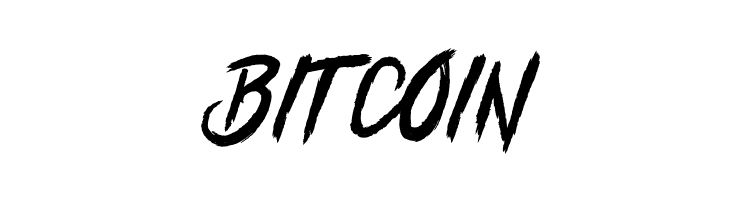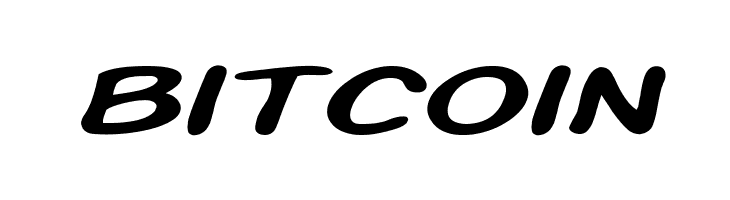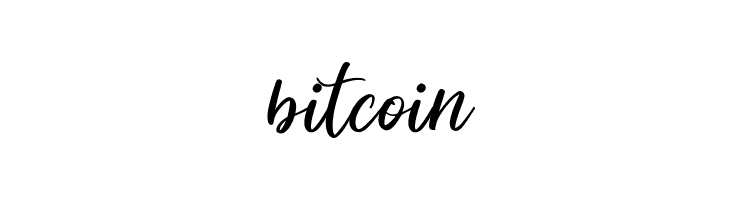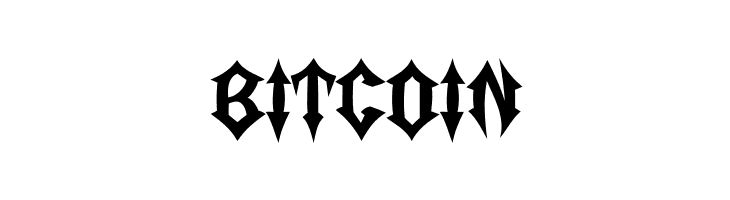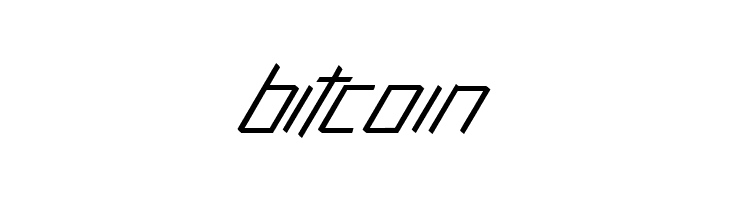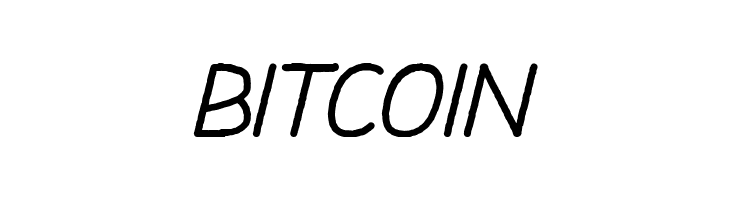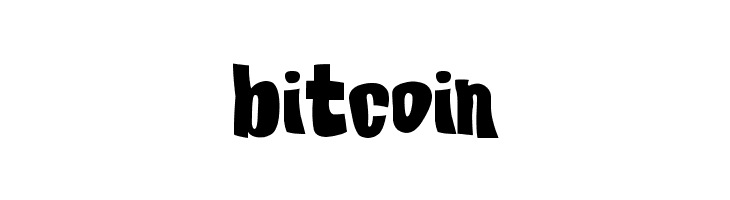
A bold, geometric, and decorative font with a layered, filled design.
A bold, decorative font with a three-dimensional effect and geometric design.
A bold, angular font with a gothic, decorative style.
A lively and elegant script font with fluid, cursive strokes and graceful curves.
An elegant, flowing script font with interconnected cursive strokes.
A dynamic, expressive handwritten font with fluid strokes.
A bold, dynamic brush script with sharp, angular strokes and an edgy flair.
Elegant cursive font with interconnected, flowing letters.
A flowing, cursive script font with an elegant, handwritten style.
Bold, angular font with a dynamic, comic book style.
A bold, comic-inspired font with a dynamic, three-dimensional style.
A bold, angular font with a dynamic, comic book-inspired style.
A playful, bold font with a 3D shadow effect and cartoonish style.
A bold, playful handwritten font with rounded, energetic letterforms.
A bold, playful font with rounded, hand-drawn style strokes.
A bold, italicized font with a playful and dynamic style.
A bold, playful font with rounded, smooth letterforms and a slight slant.
A bold, playful font with rounded edges and a cohesive, friendly style.
A bold, italicized, and extended font with a playful and dynamic style.
A bold, italicized font with smooth, rounded strokes and an extended form.
A bold, italicized handwritten font with a dynamic and energetic style.
A bold, shaded font with a playful, comic book style.
A bold, italic font with a playful, shadowed style.
A modern, geometric italic font with sharp angles and a futuristic aesthetic.
A modern, angular font with a dynamic slant and sharp lines.
Cartoon action-themed dingbat font with hand-drawn illustrations.
A casual handwritten font with smooth, slanted characters.
A decorative and elegant script font with flowing, cursive letterforms and intricate details.
A bold, Gothic-style font with ornate, angular letterforms and dramatic flourishes.
A bold, gothic-style blackletter font with intricate details.
An ornate and decorative font with intricate swirls and flourishes.
A dynamic and fluid script font with elegant, flowing letterforms.
A bold, playful font with a whimsical, hand-drawn style.